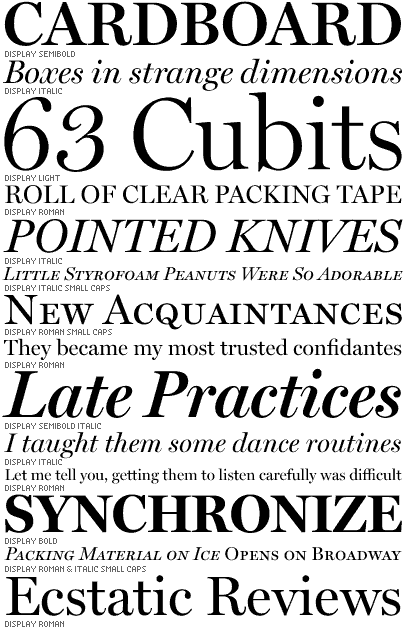
Miller
Miller, designed by Matthew Carter, is a “Scotch Roman,” a class of sturdy, general purpose types of Scottish origin, widely used in the US in the last century, but neglected since & overdue for revival. Miller is faithful to the Scotch style though not to any one historical example — and authentic in having both roman & italic small caps, a feature of the originals; Tobias Frere-Jones & Cyrus Highsmith added to the series; C&C, FB 1997–2000